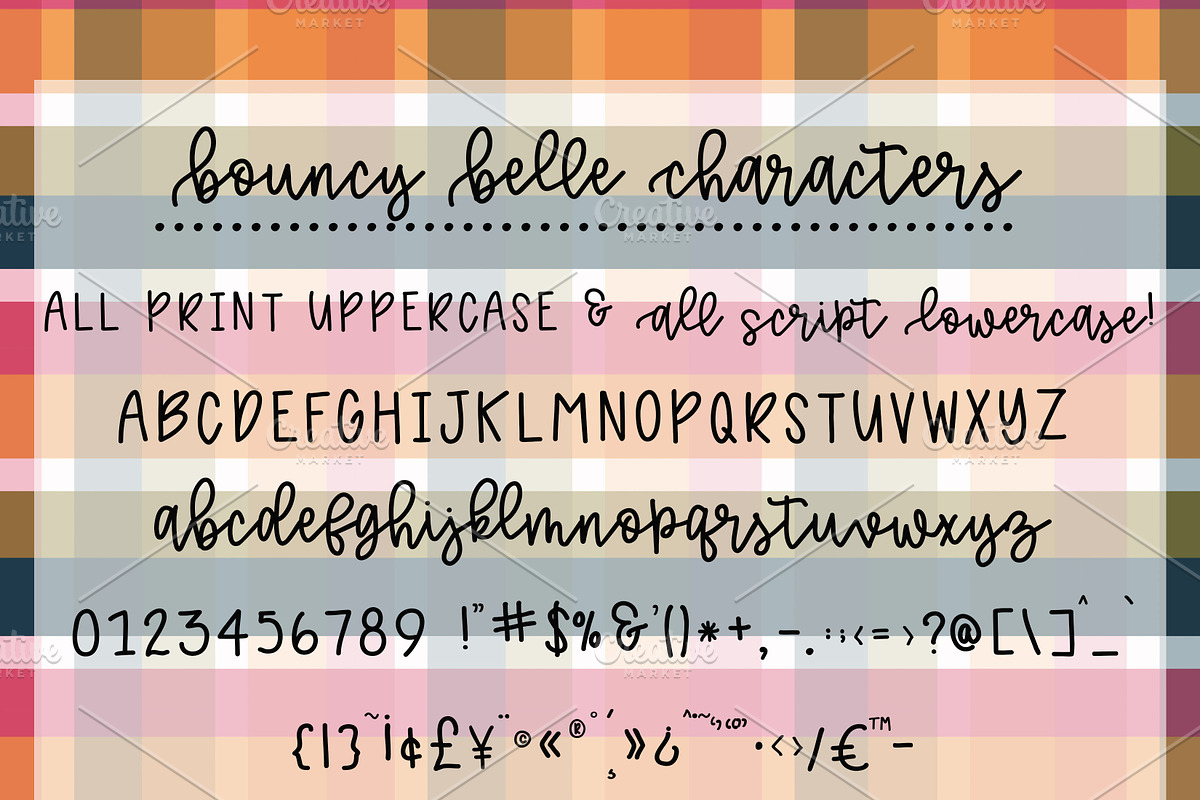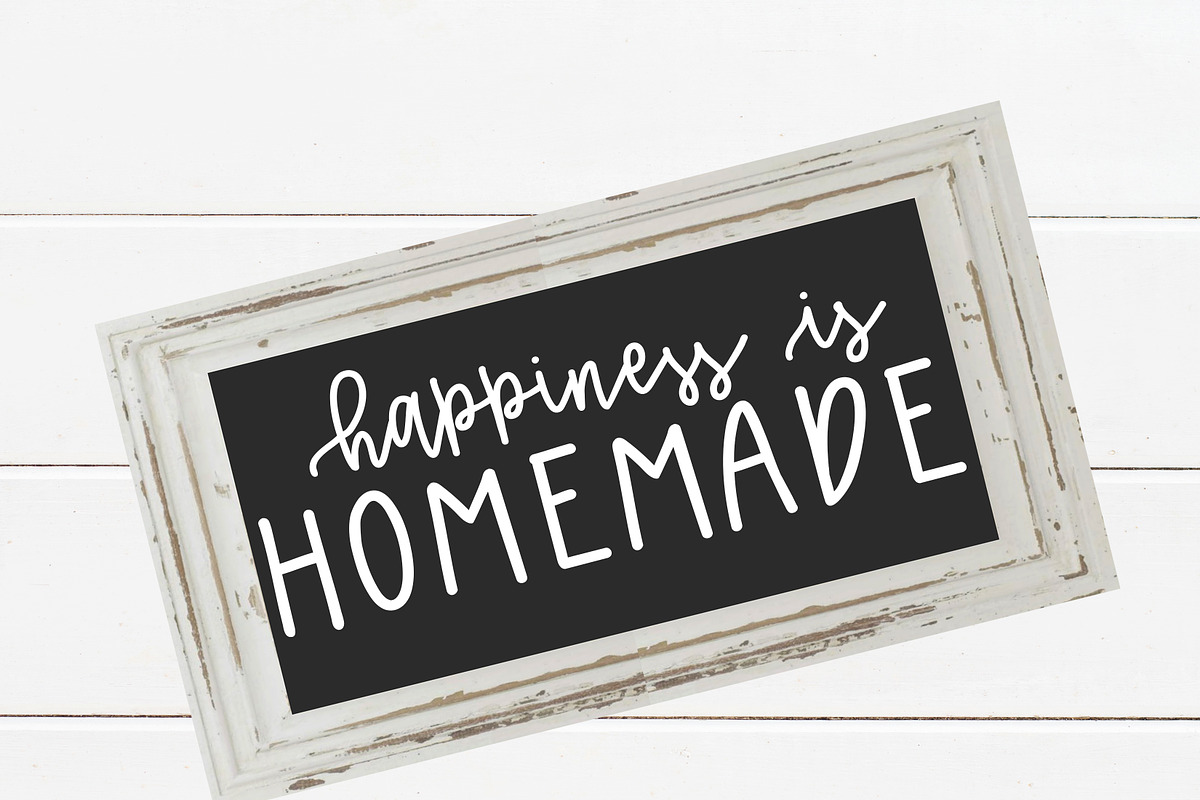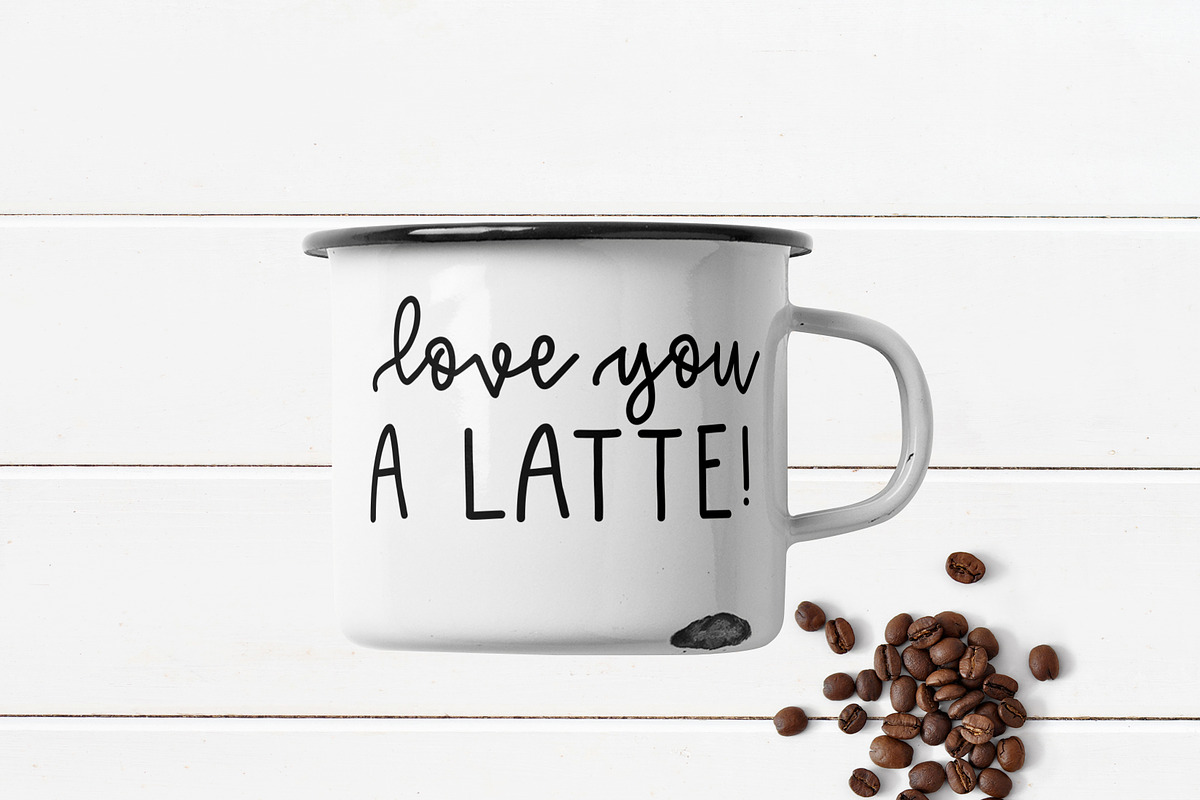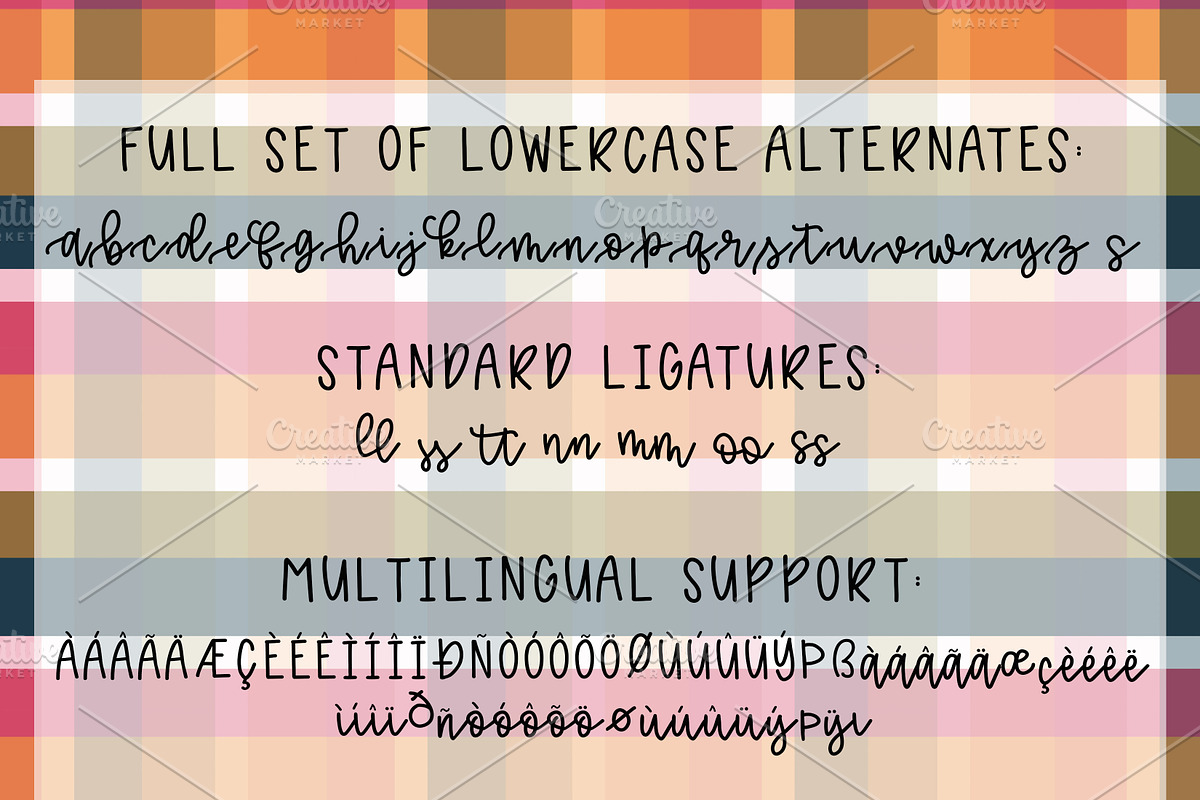
Bouncy Belle Hand lettered Font
Say hello to bouncy BELLE!
This is a playful font with lots of features!
Here's what you will get with bouncy belle:
playful lowercase script
a full set of alternates for the lowercase characters
numbers and punctuation